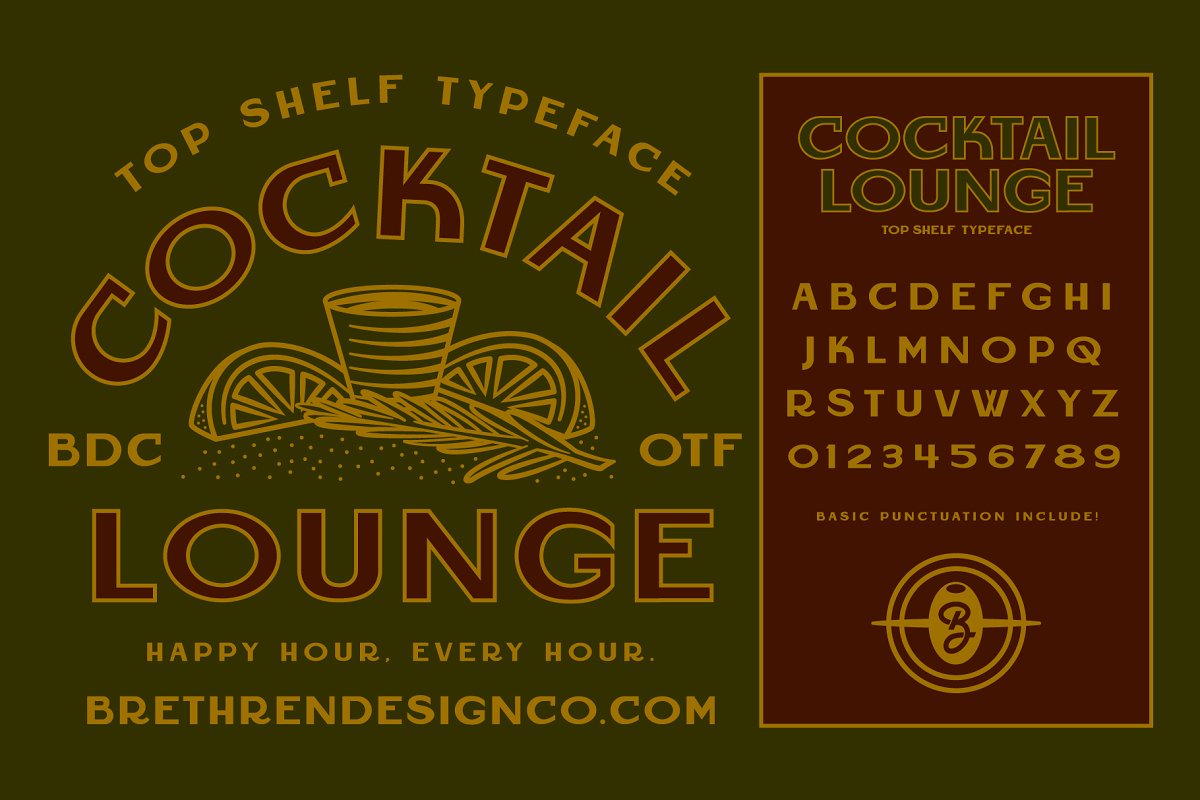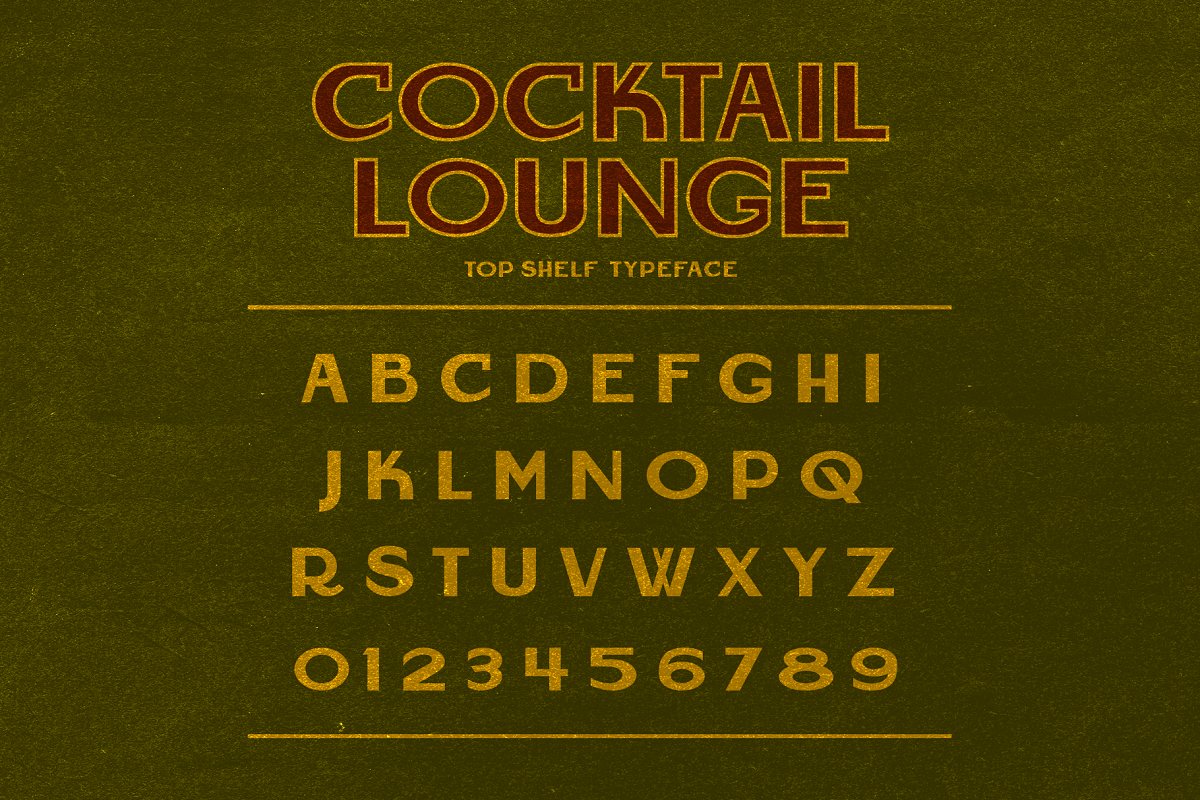
About the Cocktail Lounge Display Font
Cocktail Lounge is a fancy display face that has an elegant vintage vibes, Perfect for booze or bar branding and packaging, Use it on your next project for a clean art deco aesthetic, Numbers and punctuation included,